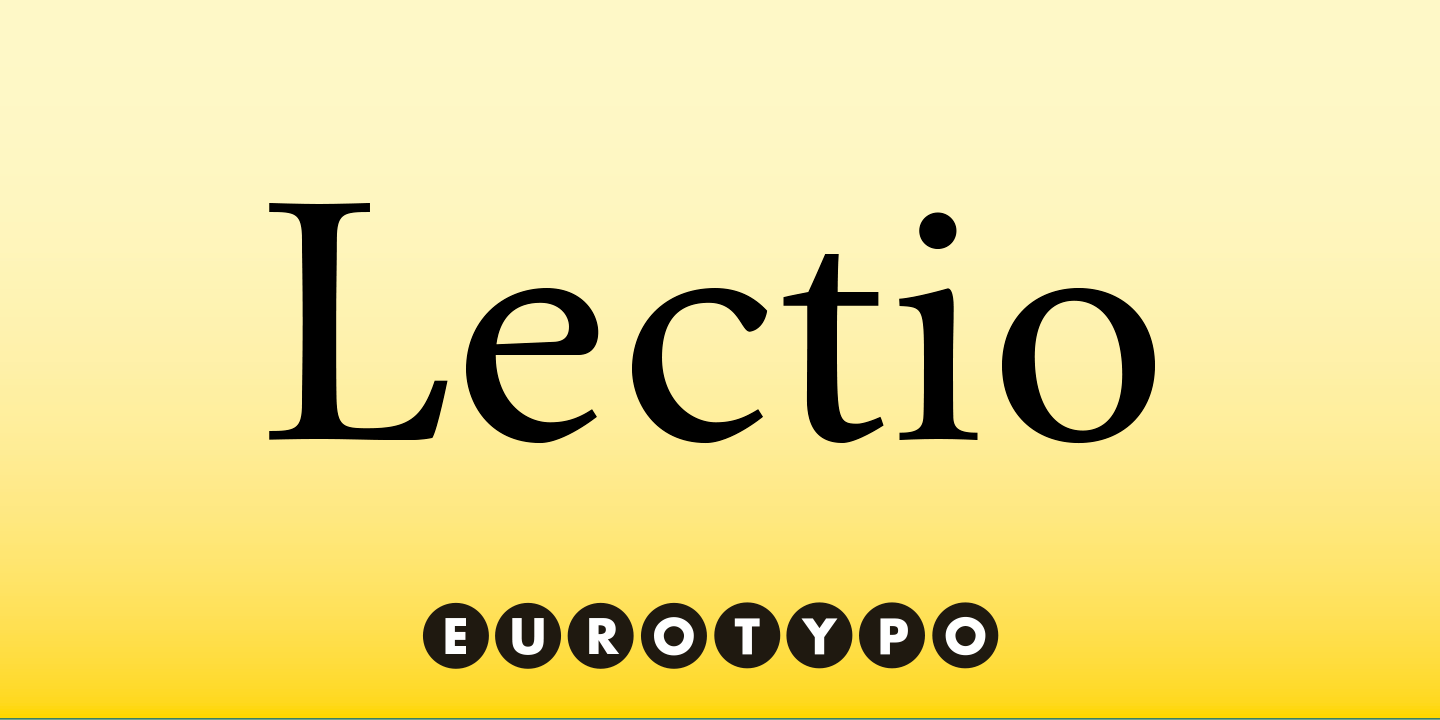
Lectio
Designed by Olcar Alcaide, Lectio is a serif font family. This typeface has twenty styles and was published by Eurotypo.
Lectio is Roman font based on a Venetian Renaissance early typefaces, but with a modern and expressive design. His obvious calligraphic influence favors continuous text reading. The generous internal “eye” gives Lectio an appropriate legibility, its soft and organic modulation avoids fatigue, its robust character is attractive and stimulating in large bodies, especially for use in headlines.
Lectio comes in two versions: Lectio and Lectio B.
Lectio has seven weight and their corresponding slanted variables (true italics).
Lectio B is composed only of Italics in six weights. The ascenders are slightly lower, the descenders are more regular and the oblique trace of some letters have a more constant rhythm.
Each of these faces has the optimum amount of contrast agains the background and clear and open internal letter shape. These fonts include diacritics for CE languages, Old Style figures, standard and discretional ligatures.